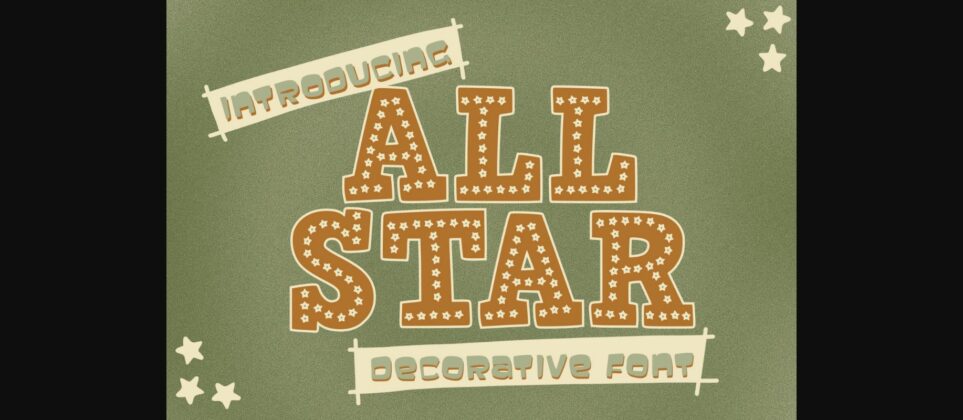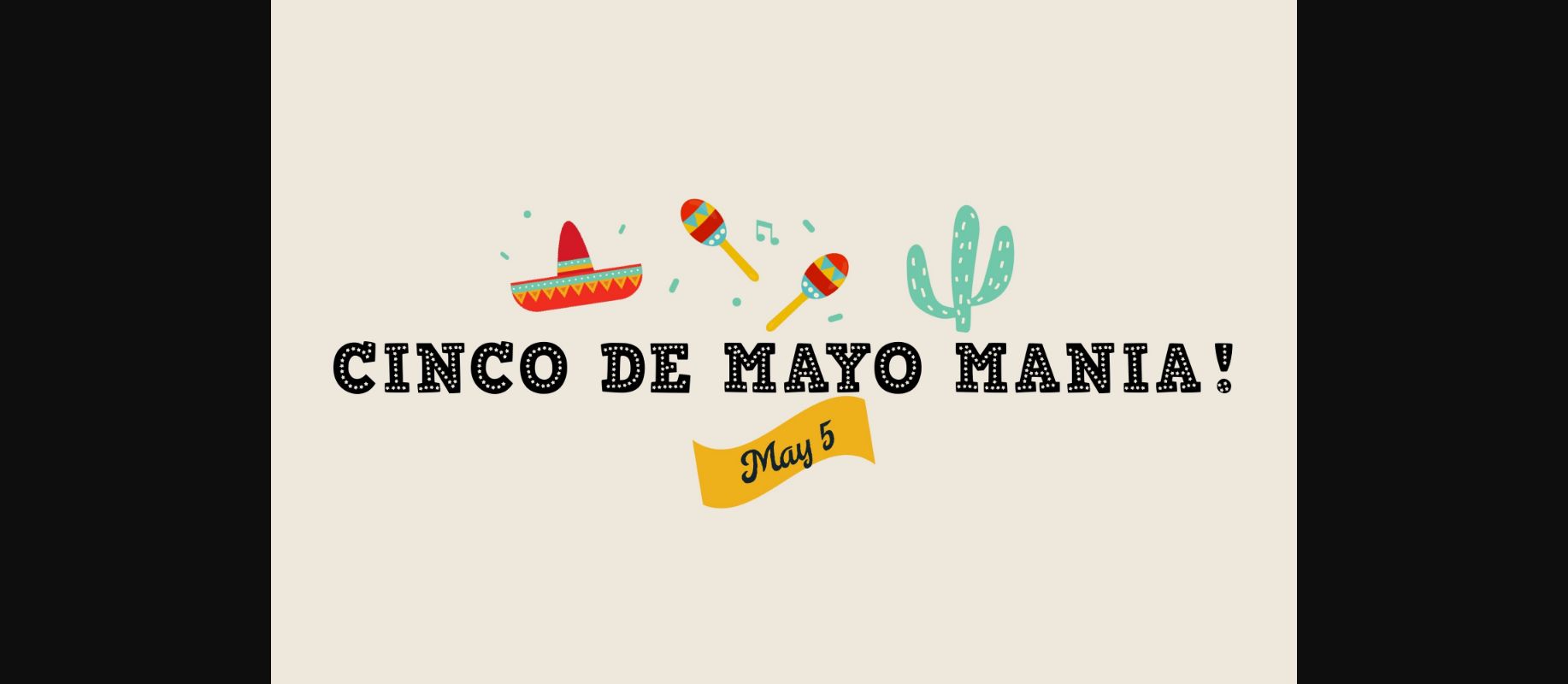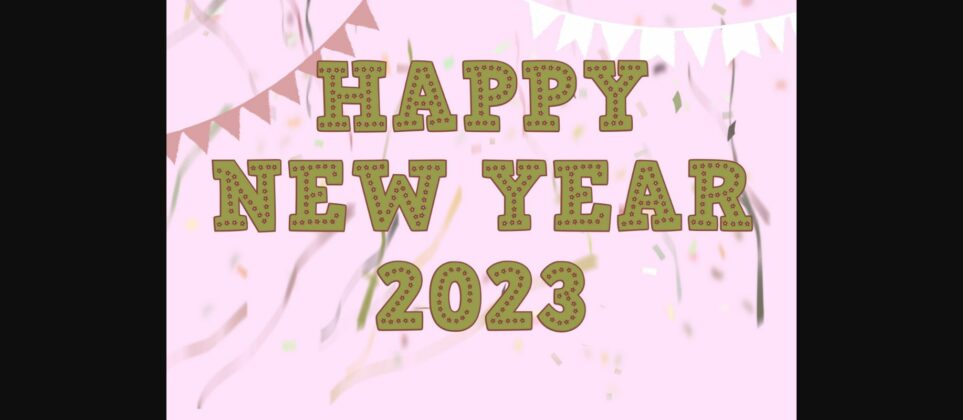
All Star Font
About All Star Font
All Star is a decorative font with a star pattern on each letter. It is perfect for card designs, t-shirt designs, or even posters. Make your artwork look outstanding with the All Star font!